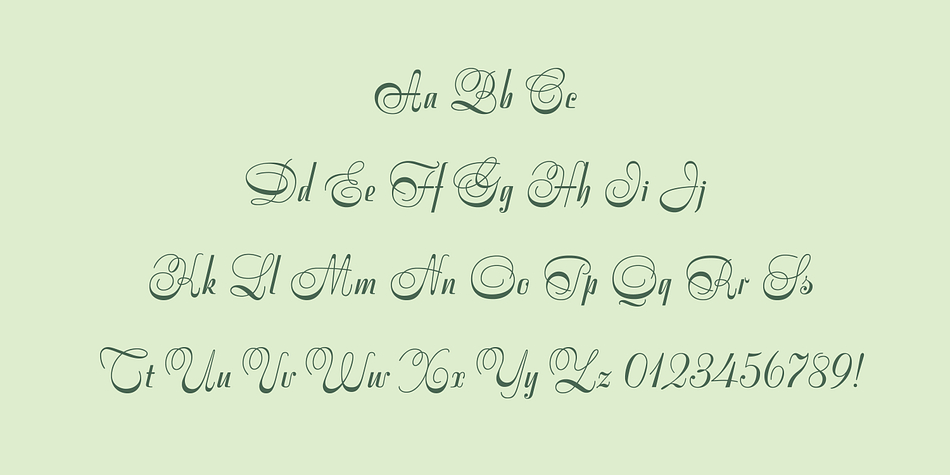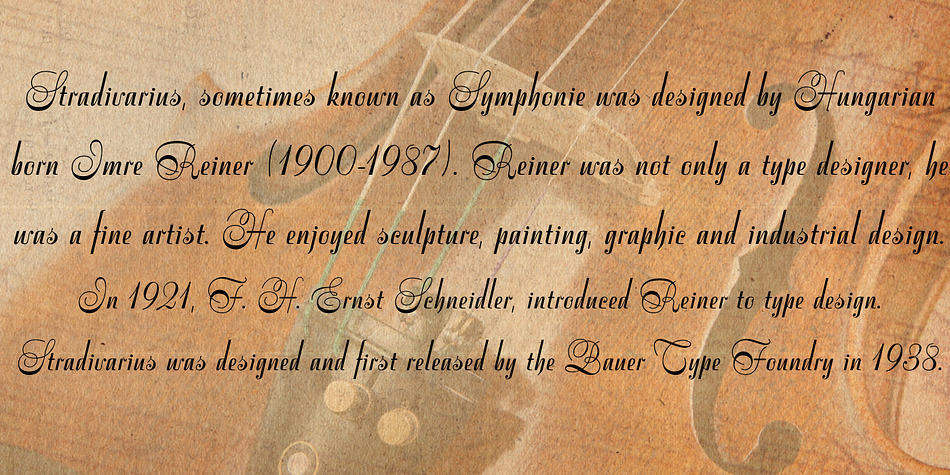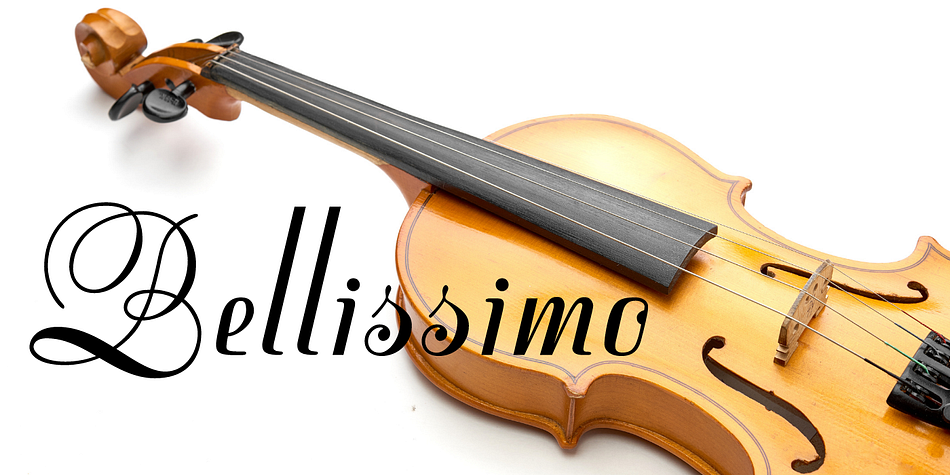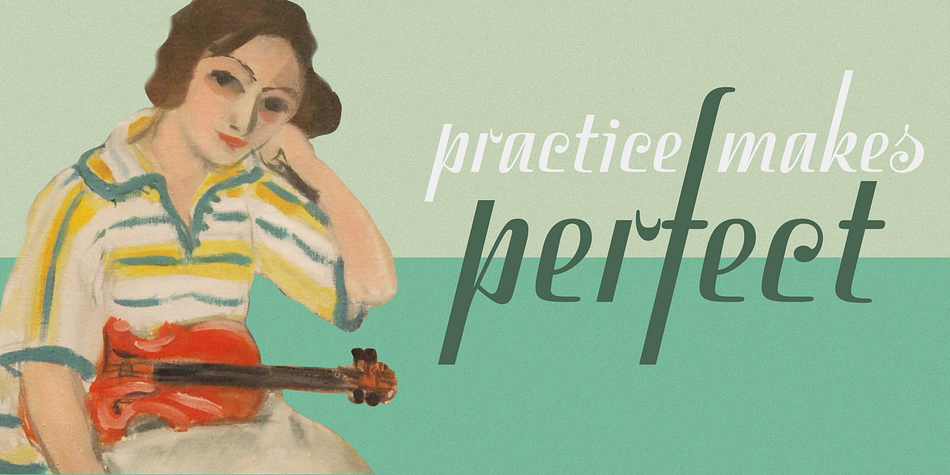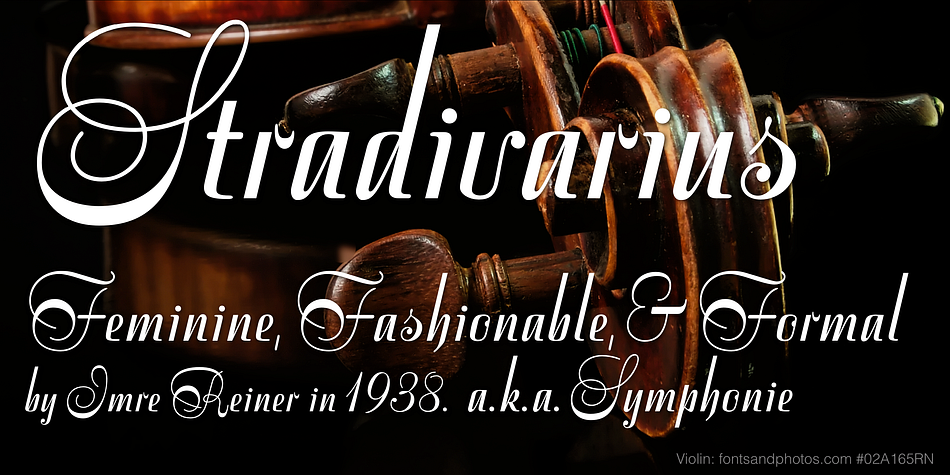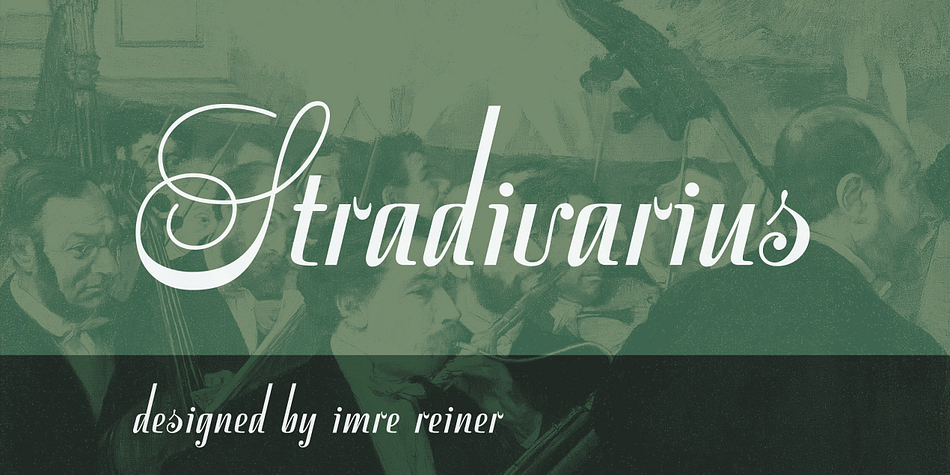
Stradivarius
Designed by Imre Reiner, Stradivarius is a script font published by FontHaus.
Stradivarius, sometimes known as Symphonie was designed by Hungarian born Imre Reiner (1900-1987). Reiner was not only a type designer, he was a fine artist. He enjoyed sculpture, painting, graphic and industrial design. In 1921, F. H. Ernst Schneidler, (Schneidler Initials) introduced Reiner to type design. Stradivarius was designed and first released by the Bauer Type Foundry in 1938.